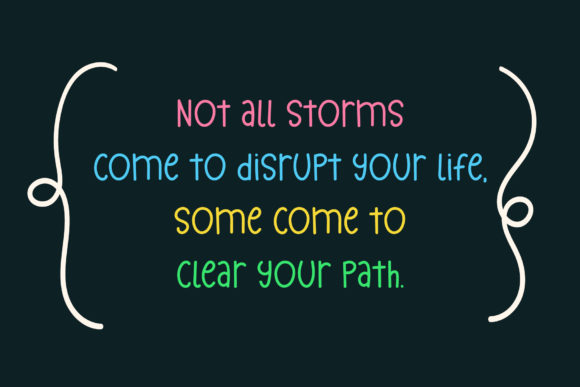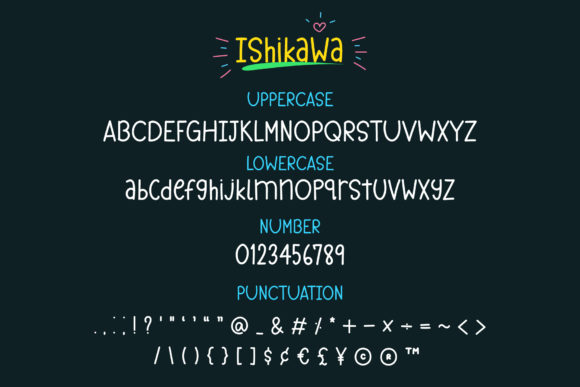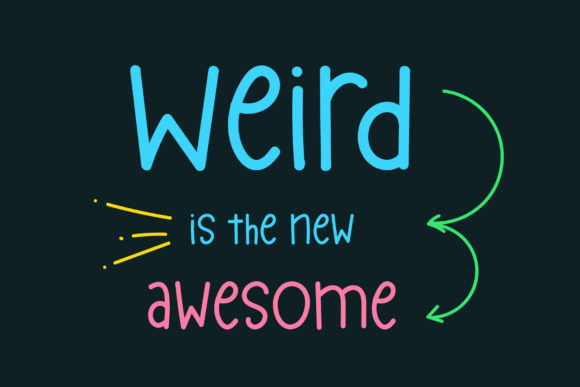
Introduction to Ishikawa Font
Ishikawa is a sweet and versatile handwritten font, carefully handcrafted to become a true favorite.
Its casual charm makes it appear wonderfully down-to-earth, the perfect choice for each of your designs Ishikawa will look outstanding in any context, whether it’s being used on busy backgrounds or as a standalone headline.
Ishikawa Font offers exceptional quality and versatility, making it a valuable addition to your design toolkit. Whether you’re creating for personal projects or commercial use, Ishikawa Font delivers professional results.